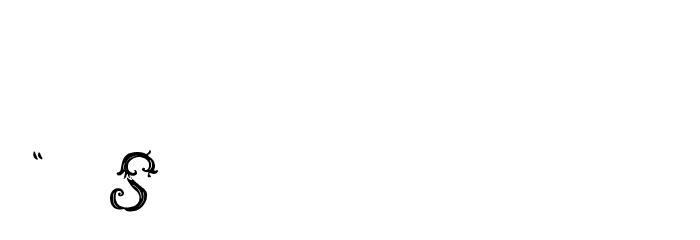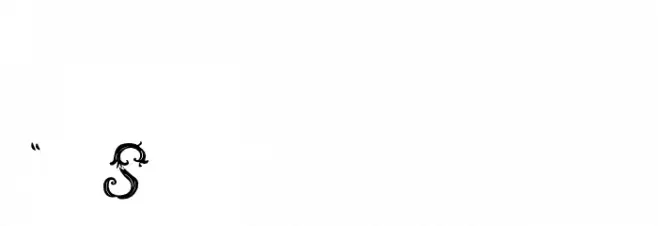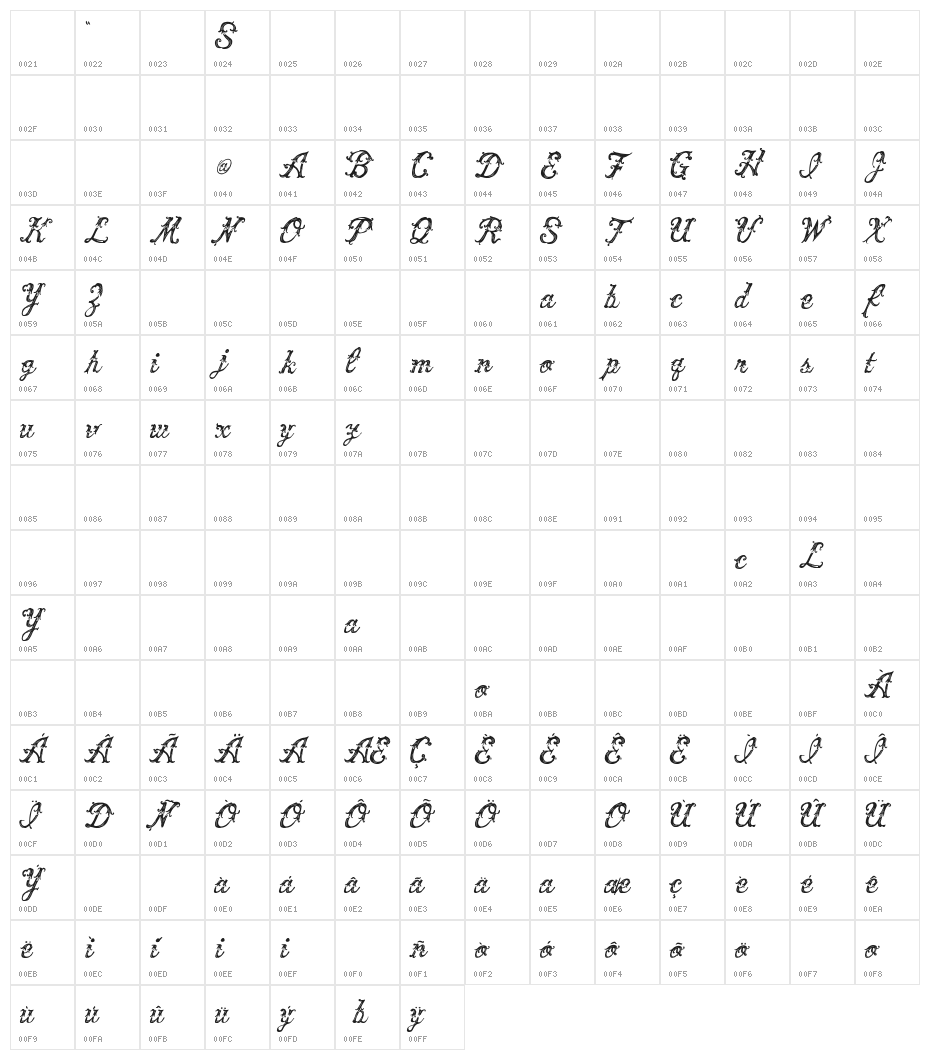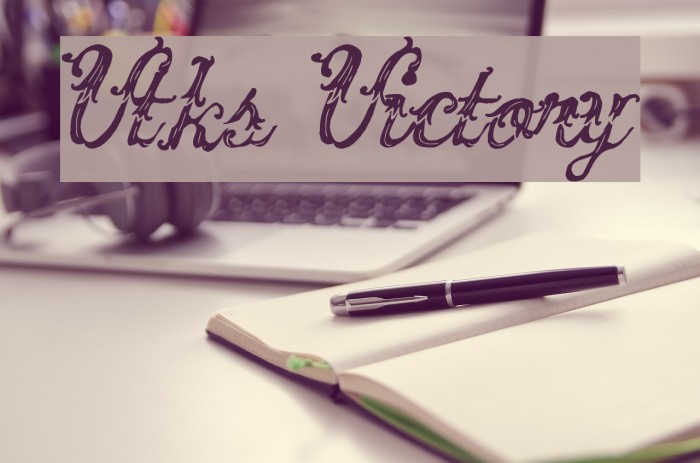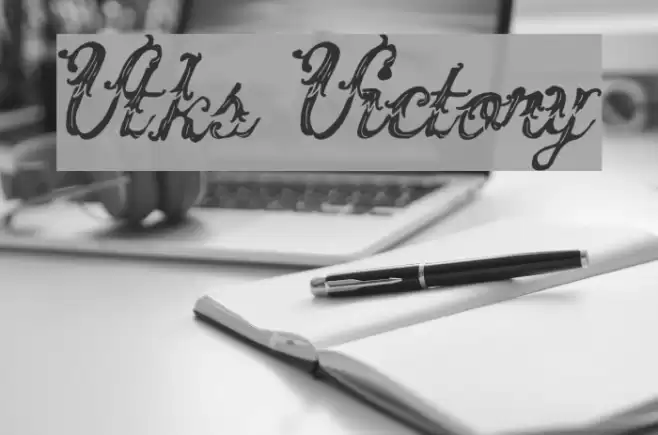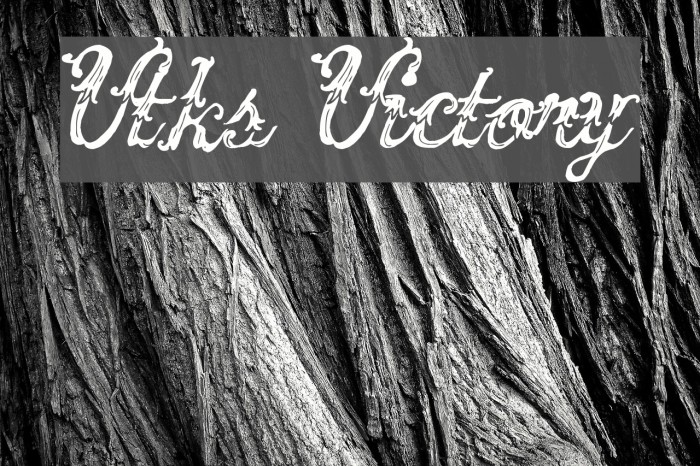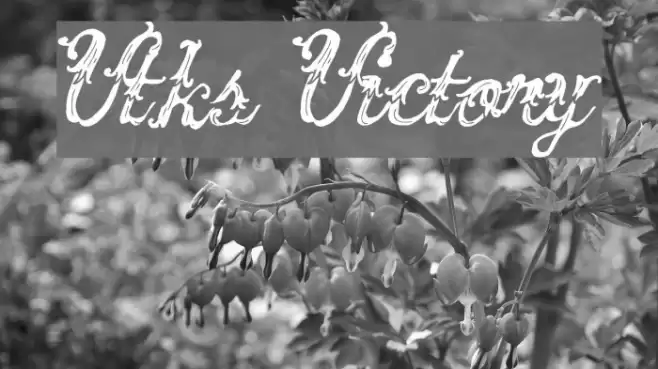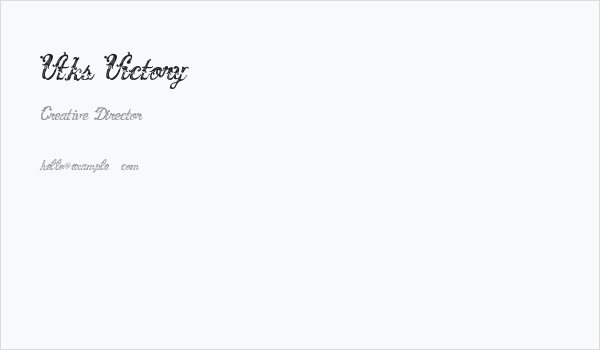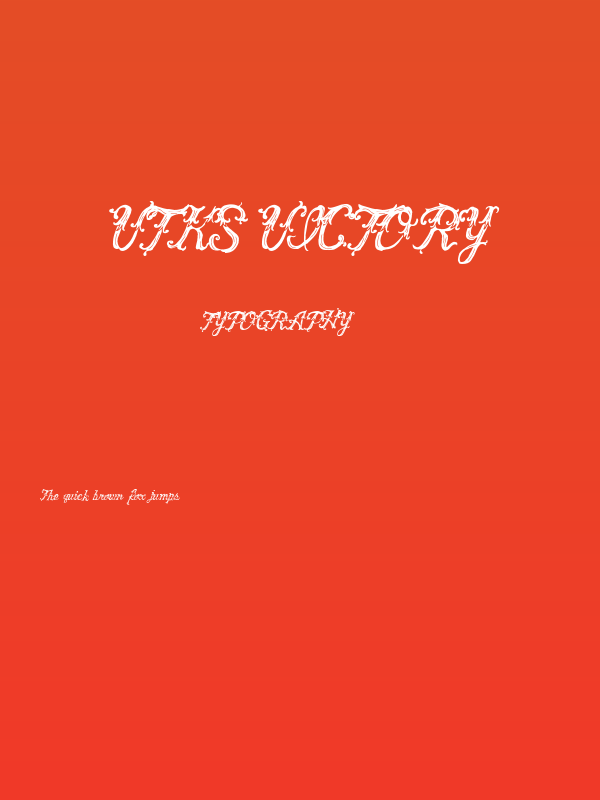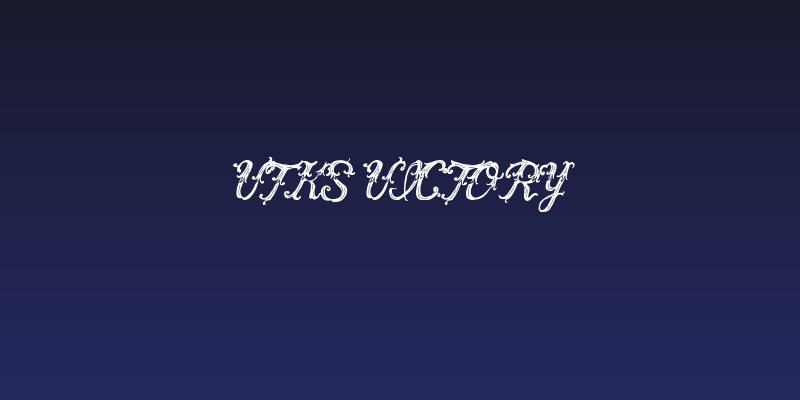
Vtks Victory Font
Vtks Victory Description
This font features an ornate and decorative style, characterized by intricate swirls and flourishes that extend from the main strokes of each letter. The uppercase letters are particularly elaborate, with embellishments that give a sense of elegance and sophistication. The lowercase letters maintain a consistent style, though slightly less ornate, providing a balanced contrast to the uppercase. The numbers and special characters follow the same decorative theme, ensuring a cohesive appearance across all glyphs. This font's unique style makes it stand out, ideal for projects that require a touch of vintage charm and artistic flair.
| Proposed Projects | Ideal for wedding invitations, vintage-themed posters, and artistic branding projects. |